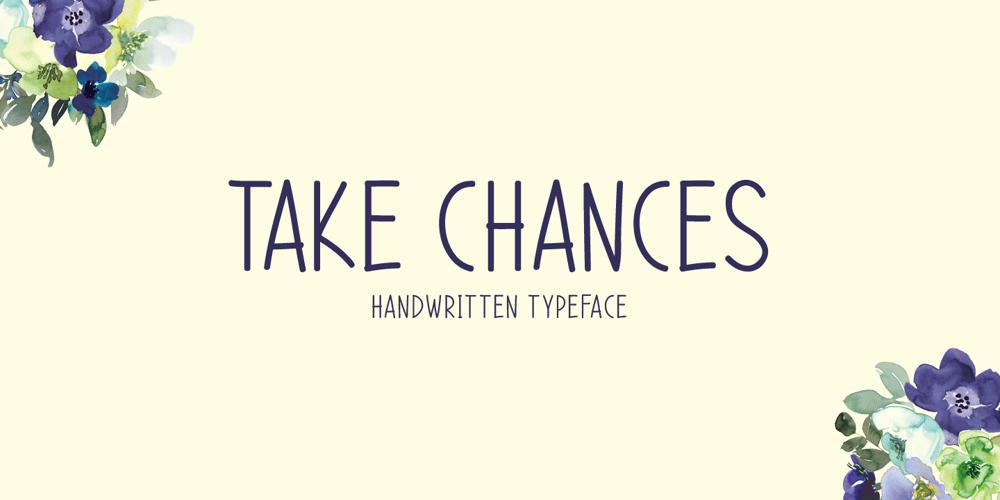
Take Chances
Take Chances font
Take Chances Font Family was designed by Md Shohail Bhuian and published by Seemly Fonts. Take Chances contains 1 styles and family package options. Take Chances is a simple and natural handwritten font. This font will greatly complement each of the design ideas you wish to bring to life!